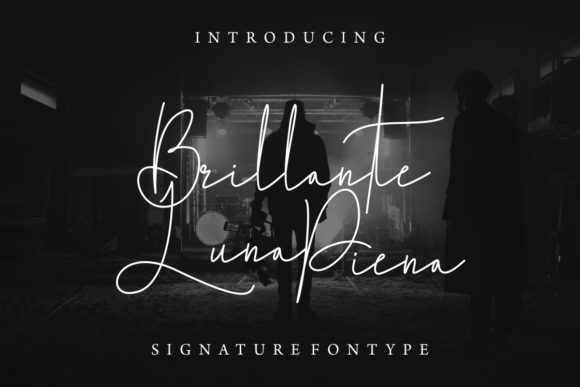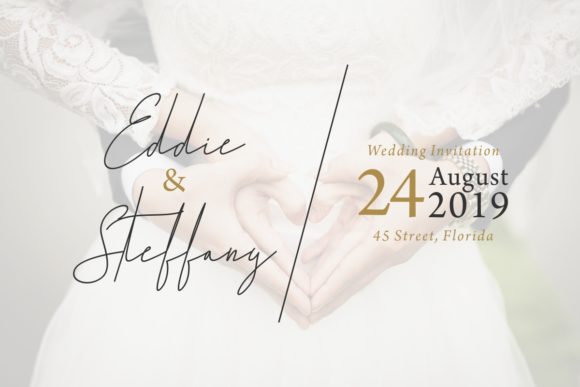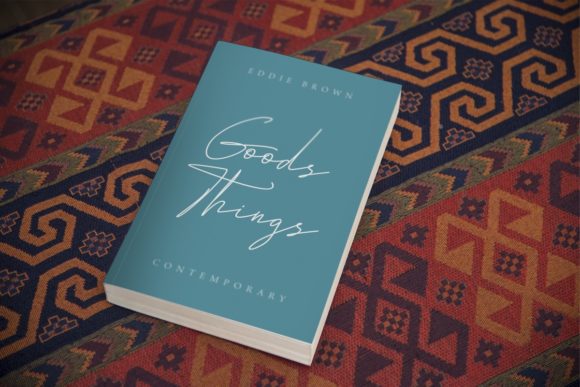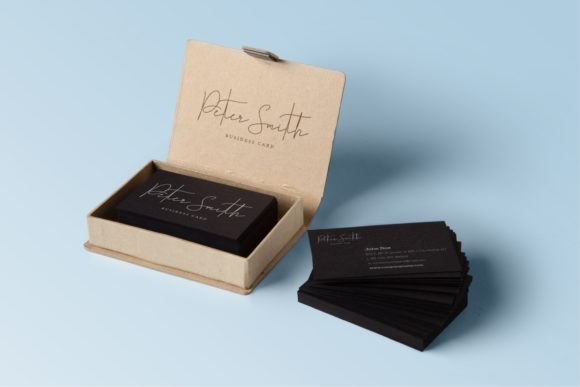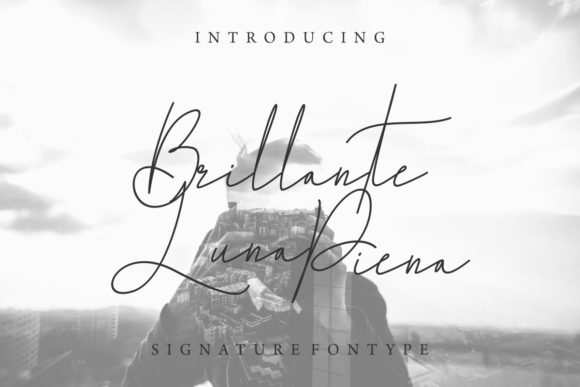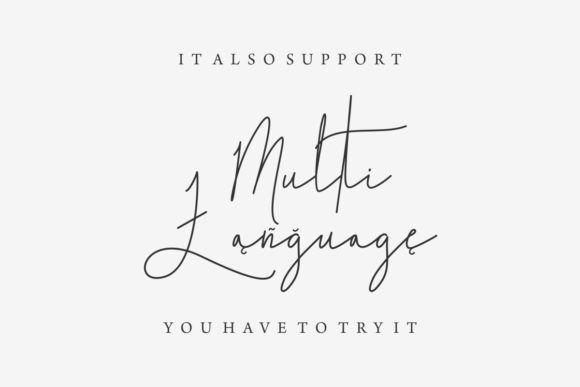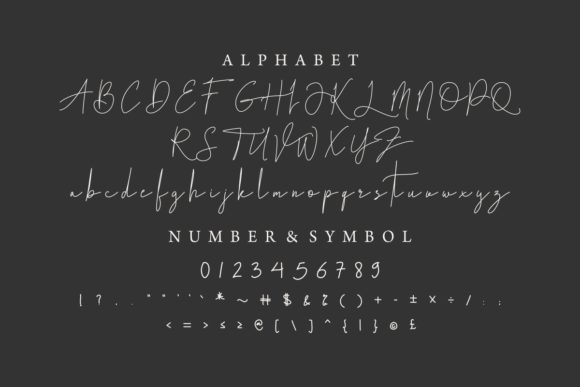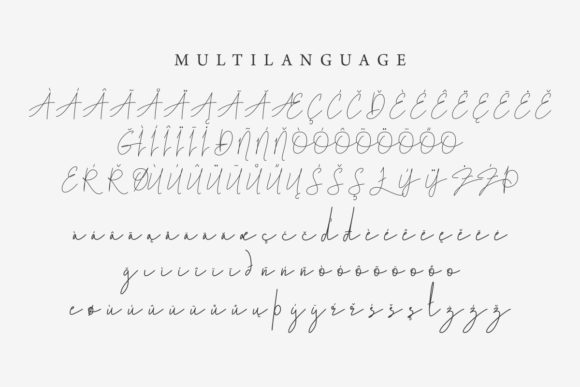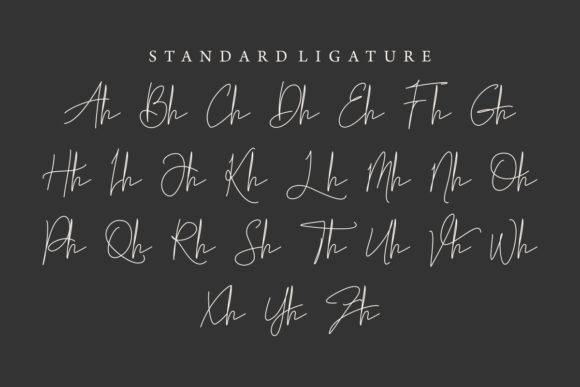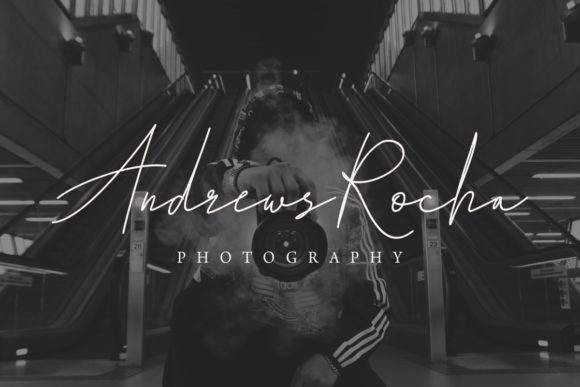
Brillante Luna Piena Font
About Brillante Luna Piena Font
Brillante Luna Piena is inspired by all things Italy, and will add a sweet and charming touch to any design idea!